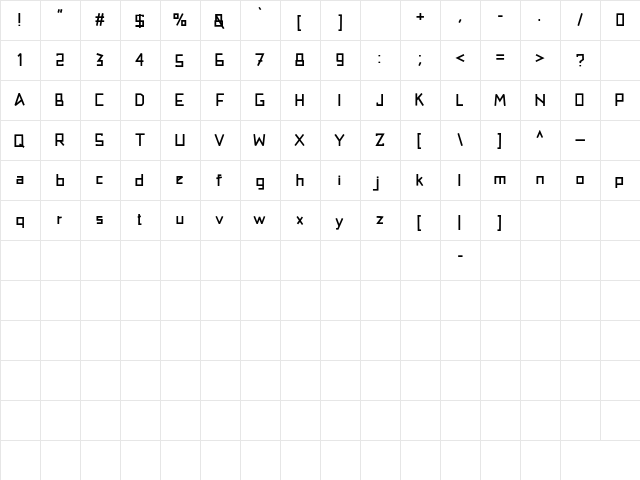
Tadeliji Regular
Design Context for Tadeliji Typeface
Tadeliji is a composed and adaptable typeface that performs quietly and consistently across a wide range of design contexts.